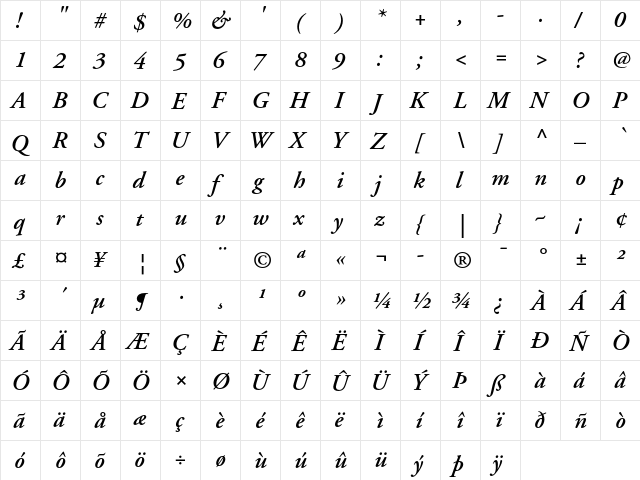
Adobe Garamond Semibold Italic Font Preview
Design Context for Adobe Garamond Typeface
Adobe Garamond takes a measured approach to typography — its balanced proportions and neutral character make it a reliable workhorse for both digital and print work. Its italic angle brings a sense of urgency and motion to the letterforms. Its bold stroke weight gives it real presence on the page.
Pro Tip: Try Adobe Garamond for annotation and caption copy alongside an upright companion — the contrast in angle creates a dynamic but ordered typographic system.